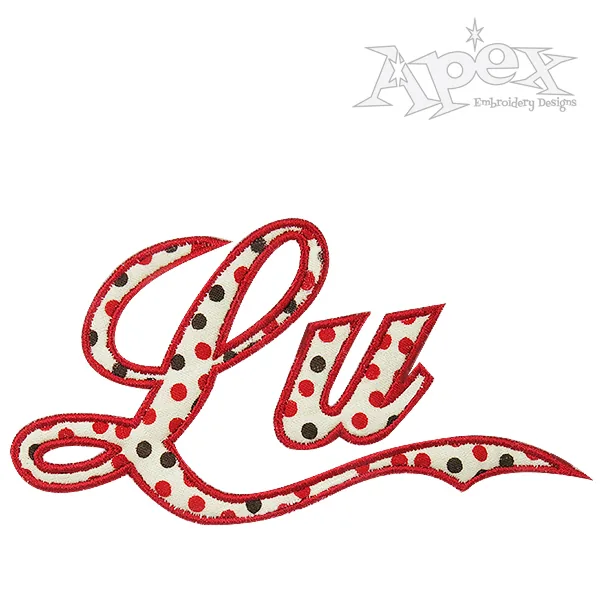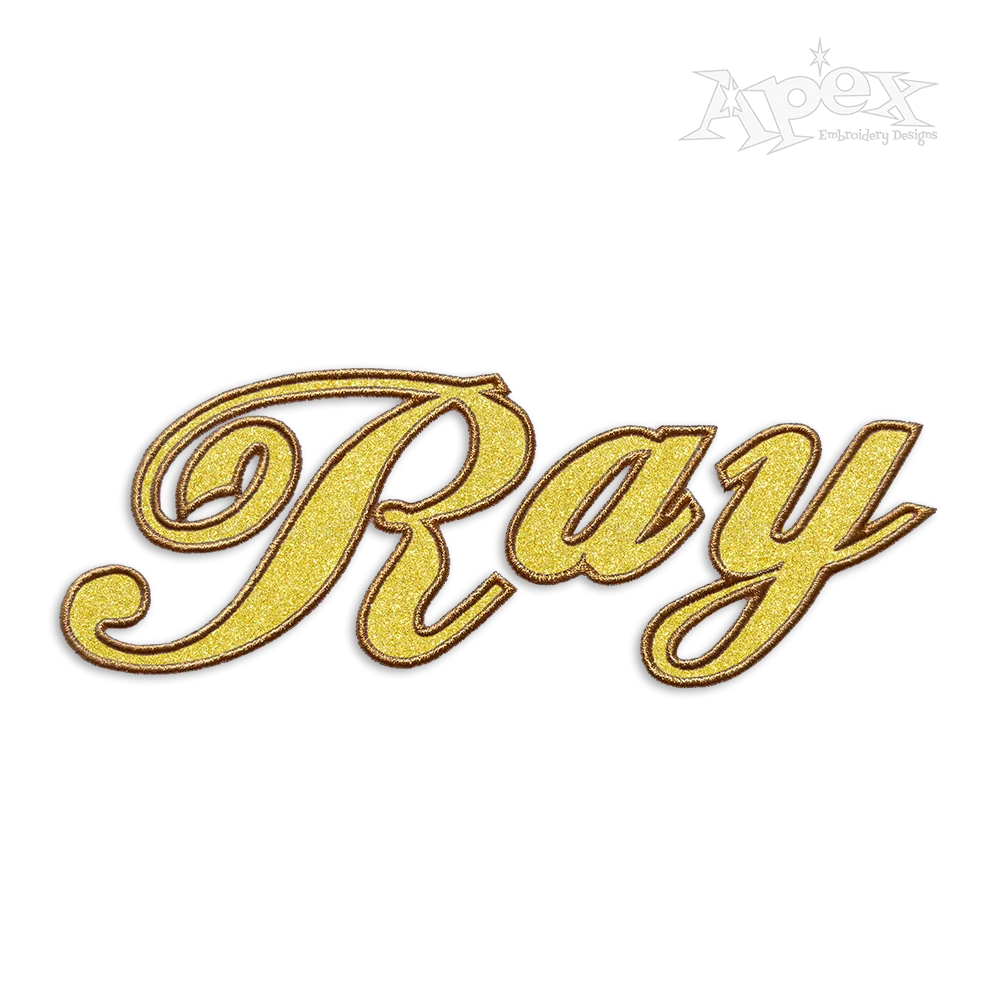
Cola Script Applique Embroidery Font
When digitizing the Cola Script Applique Embroidery Font, our studio drew inspiration from the golden era of roadside diners, chilled glass soda bottles, and sun-bleached varsity jackets. There is an unmistakable romance in these sweeping retro curves—a buoyant rhythm that carries the eye effortlessly across every word. By translating this beloved cursive silhouette into a tactile applique format, we wanted to give makers the freedom to marry lush decorative fabrics with high-density thread, creating show-stopping statement monograms that celebrate timeless Americana craft.
Each individual character file is digitized with precise three-step applique engineering: a delicate placement guide line, a secure material tackdown stitch, and a plush, protective satin stitch cover that encapsulates your fabric raw edges cleanly.
Cola Script Applique Craft & Letterform Details
Transforming dynamic script into an applique letterform presents a unique digitized challenge: cursive strokes naturally taper and swell, yet an applique border must consistently secure fabric edges without bulkiness or pinholes. Our digitizers meticulously drafted each stroke to ensure smooth transitions where descending loops and ascending flourishes intersect.
We optimized corner angles and travel paths so your embroidery machine glides effortlessly along the contours, laying down a rich, lustrous satin border that prevents fraying even through routine washing. Every curve honors the breezy confidence of classic hand-lettering, pairing structural embroidery integrity with an undeniable vintage soul.